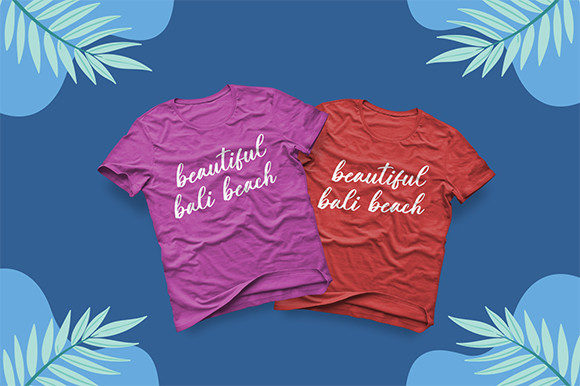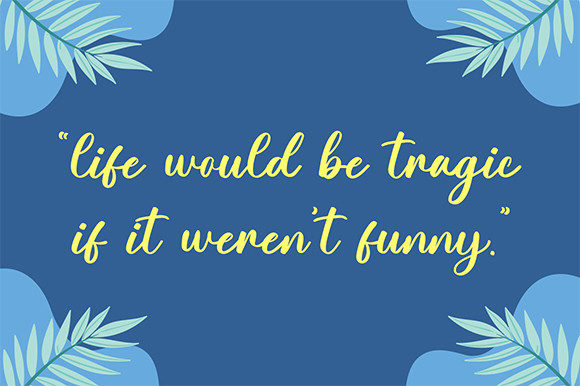
Kuta Beach Font
db-ku.com - Script & Handwritten -- Kuta Beach is a sweet font and modern Calligraphy with a beautiful feel. Its distinct and well rounded letters make this font a masterpiece.